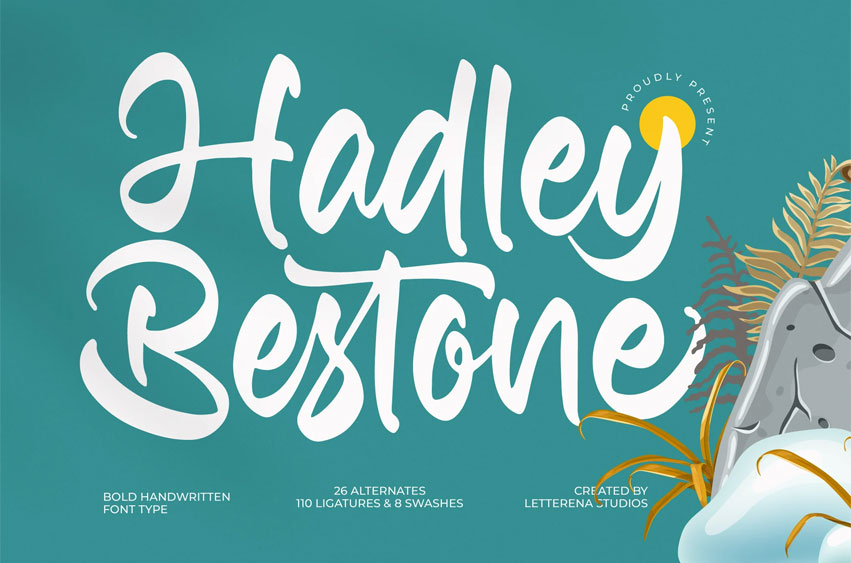
Hadley Bestone Font
Hadley Bestone Font is suitable to complement your digital and printed creative products. This font is perfect for posters, social media posts, branding, personal projects, etc.